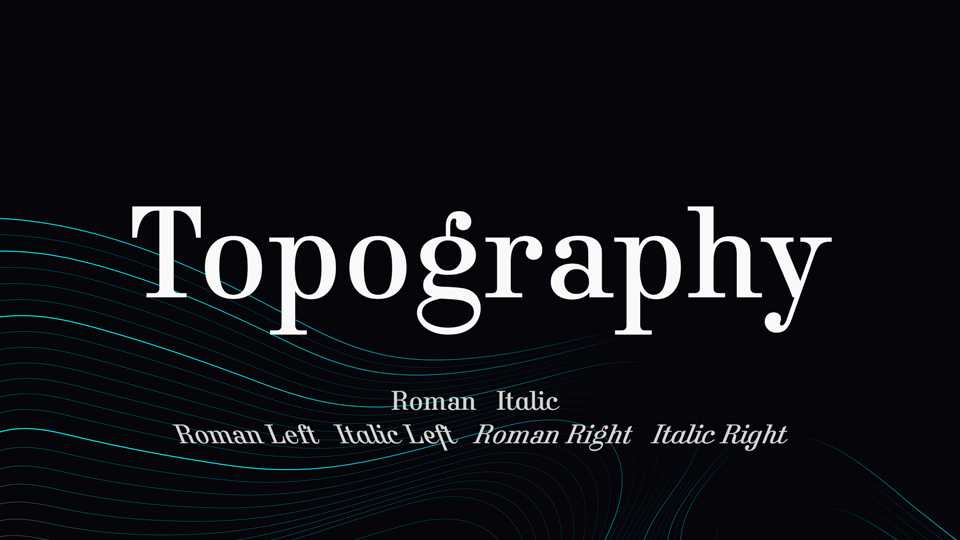
Download Topography typeface, a contrast serif font family in three styles with Italics based on the version of the classic German cartography type.
Designer: Jens Kutilek